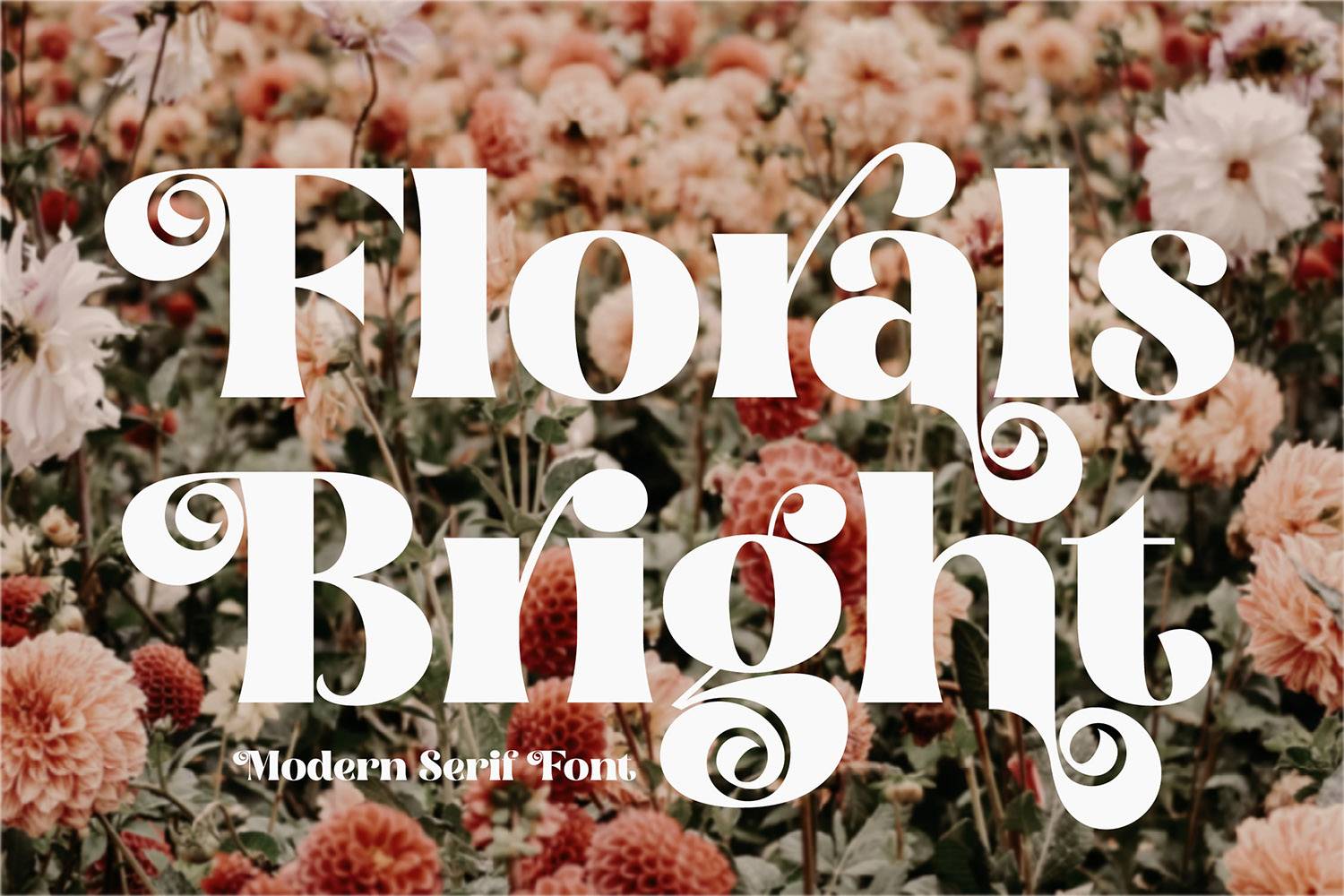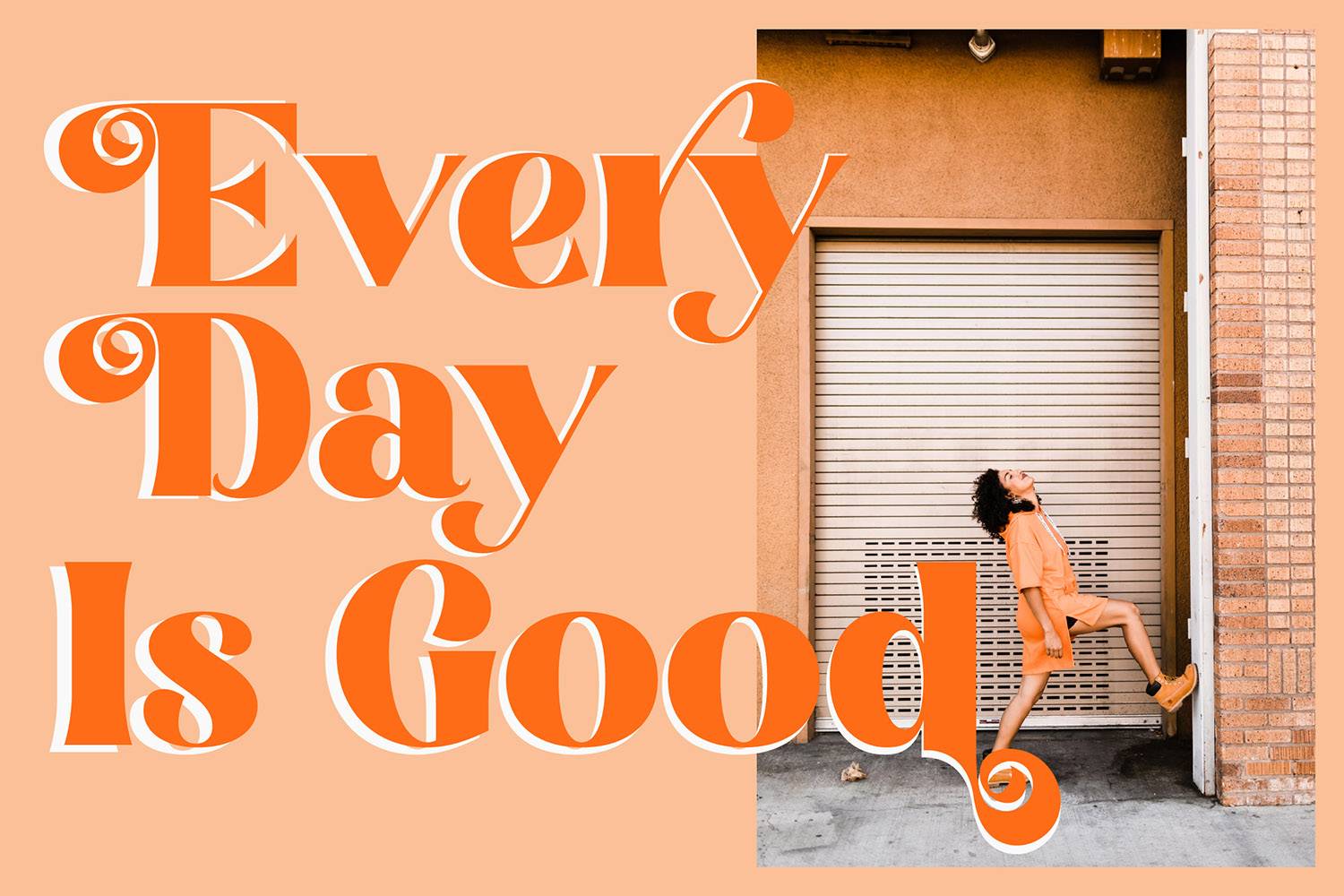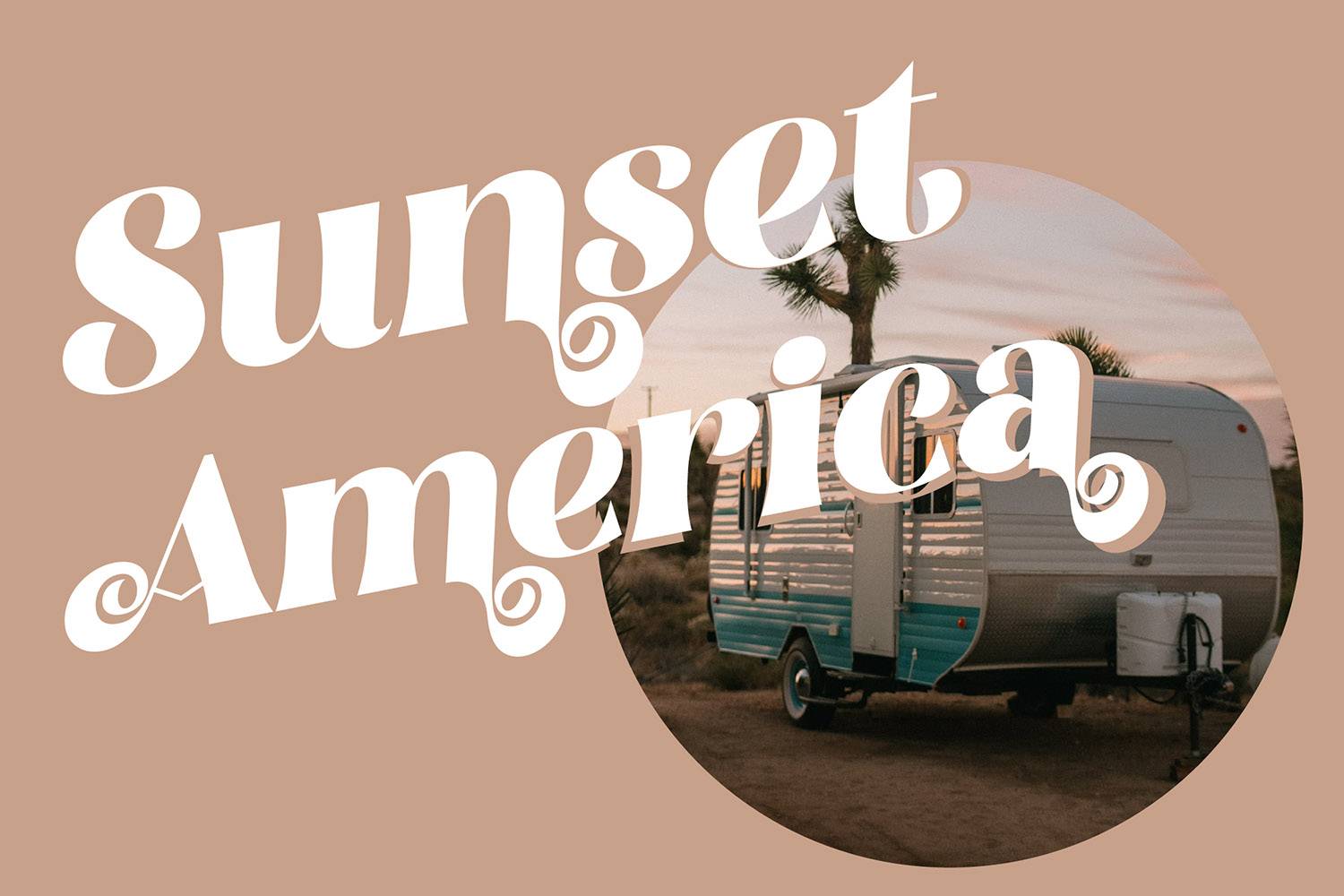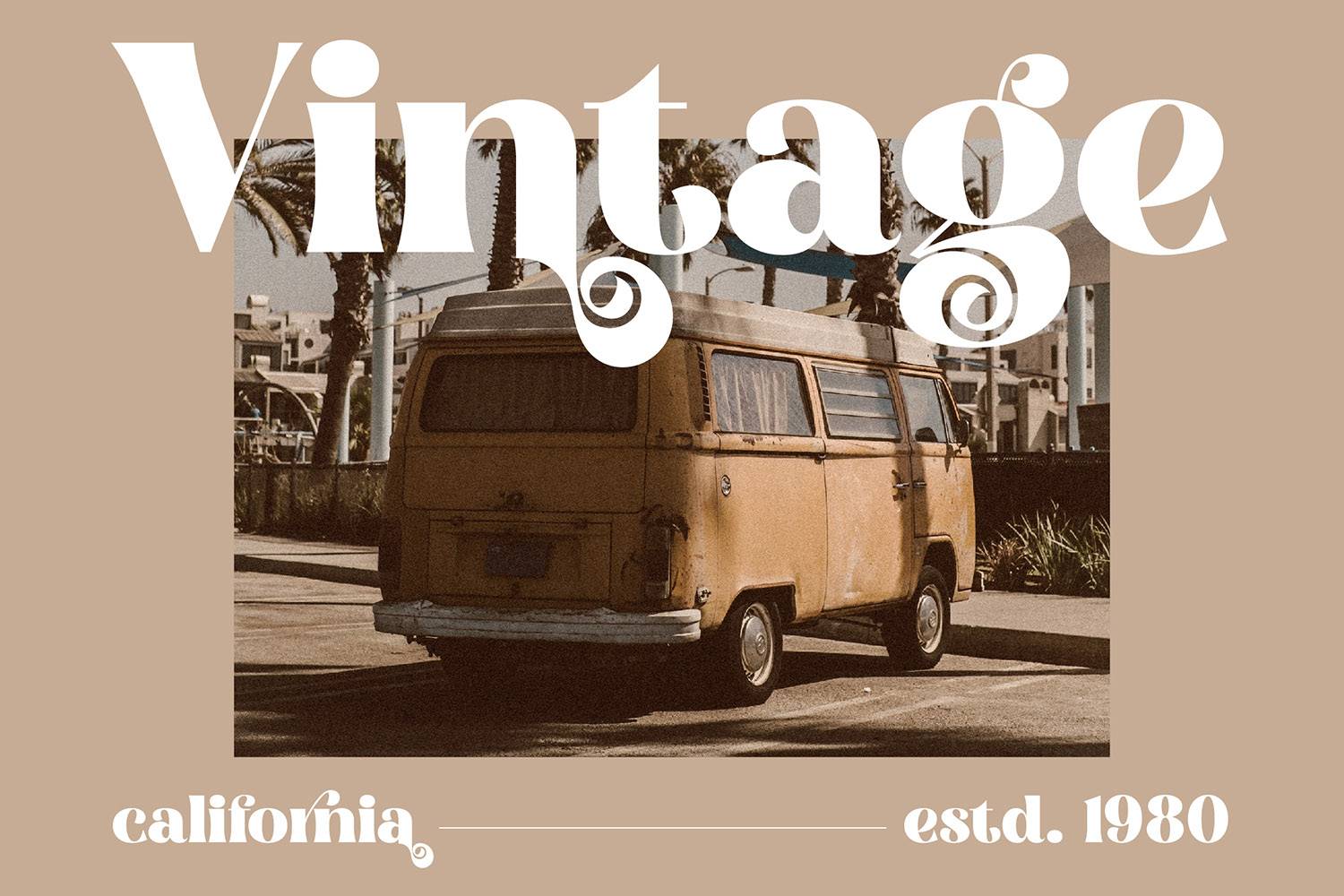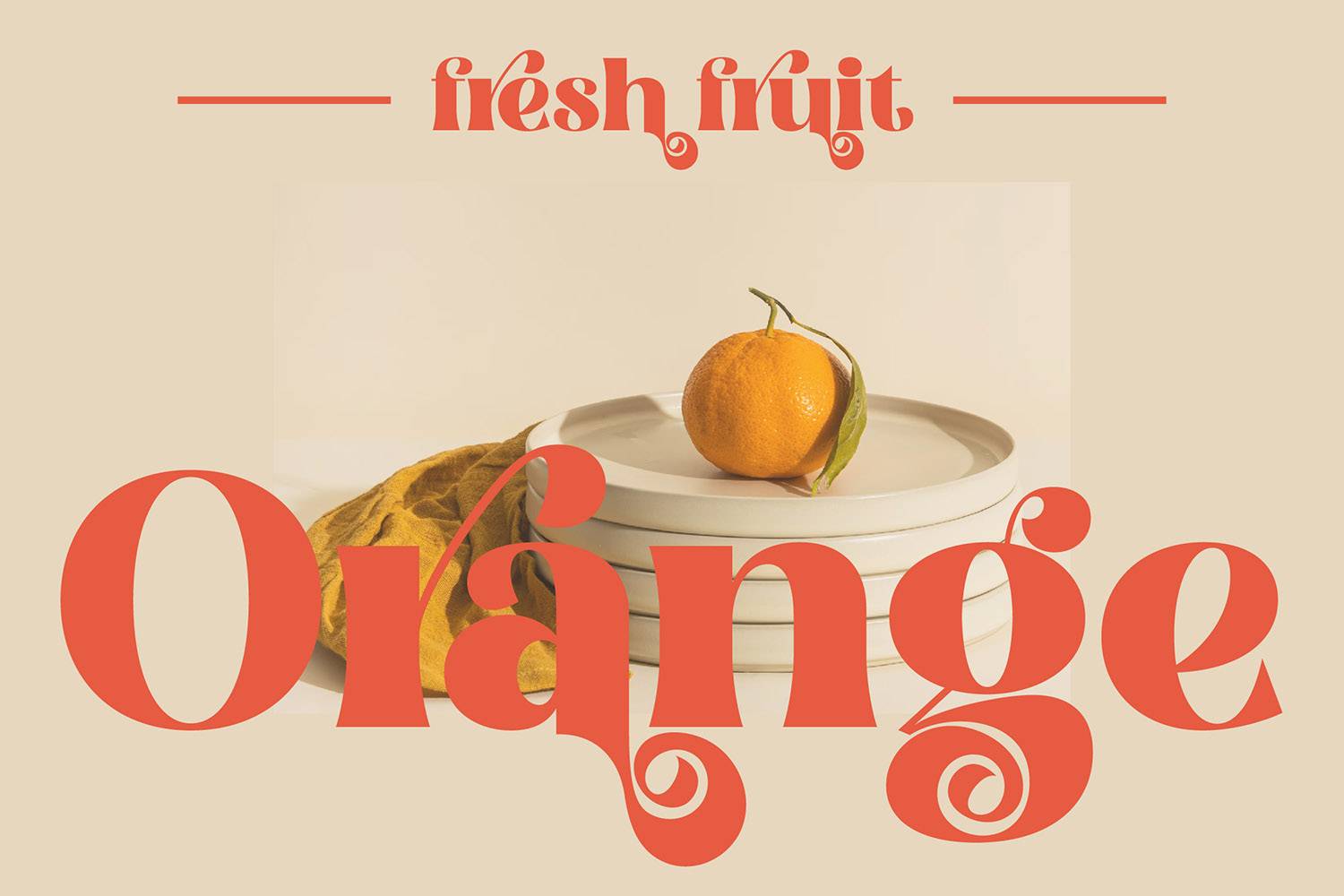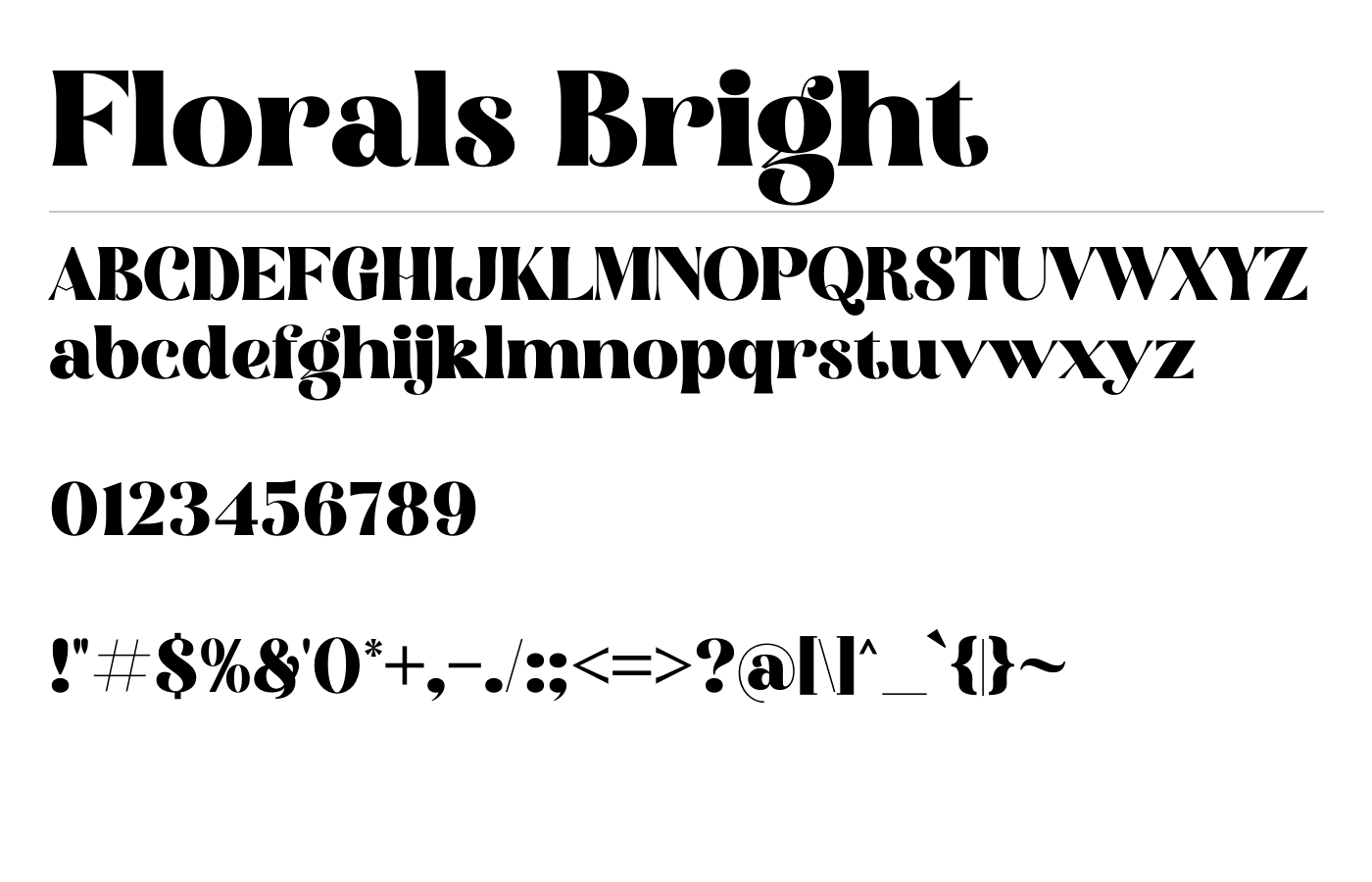
Florals Bright is a bold serif font with a strong modern Didone influence, characterized by high contrast between thick and thin strokes and distinctive sharp, bracketed serifs. Its elegant letterforms, unique flourishes on characters like the “g” and “Q,” and high x-height give it a luxurious yet contemporary feel, making it ideal for fashion branding, upscale editorial headlines, and striking logo designs that need a touch of sophistication. This font shines in large sizes where its artistic details and stylish personality can truly stand out.
Florals Bright Font
About Florals Bright Font